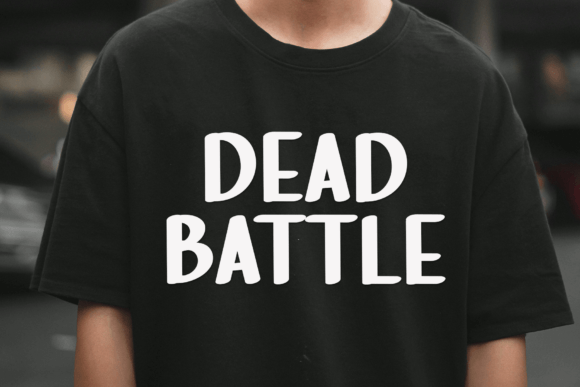
Bold Alphabet Font: Making a Statement with Strong and Eye-Catching Typography
The world of typography is vast and diverse, with numerous font styles to choose from, each with its unique characteristics and uses. Among these, the Bold Alphabet Font stands out for its strength and eye-catching appeal. Designed with thick, heavy letters, this font is perfect for making big, bold statements in headlines, posters, or any design that needs attention. In this article, we’ll explore the features, benefits, and applications of the Bold Alphabet Font, and why it’s a popular choice among designers and marketers.
Key Features of Bold Alphabet Font
- Thick and Heavy Letters: The Bold Alphabet Font is characterized by its thick and heavy letters, which give it a strong and sturdy appearance.
- Clear and Easy to Read: Despite its boldness, the font is clear and easy to read, making it perfect for use in headlines, titles, and other display text.
- Modern Feel: The font has a modern feel to it, which makes it suitable for use in contemporary designs, such as posters, flyers, and digital media.
- Versatility: The Bold Alphabet Font can be used in a variety of design applications, from print to digital media.
Applications of Bold Alphabet Font
The Bold Alphabet Font is a versatile typeface that can be used in a wide range of design applications. Here are some of the most popular uses of this font:
- Headlines and Titles: The font is perfect for use in headlines and titles, where a strong and attention-grabbing typeface is needed.
- Posters and Flyers: The Bold Alphabet Font is a popular choice for posters and flyers, where its bold and eye-catching appearance can help grab attention.
- Branding and Logo Design: The font can be used in branding and logo design, where a strong and memorable typeface is needed.
- Digital Media: The font can be used in digital media, such as social media graphics, video titles, and website headers.
Benefits of Using Bold Alphabet Font
The Bold Alphabet Font offers several benefits to designers and marketers. Here are some of the most significant advantages of using this font:
- Attention-Grabbing: The font’s bold and eye-catching appearance makes it perfect for grabbing attention in headlines, posters, and other display text.
- Easy to Read: The font is clear and easy to read, even at small sizes, making it perfect for use in a variety of design applications.
- Versatile: The font can be used in a wide range of design applications, from print to digital media.
- Modern Feel: The font has a modern feel to it, which makes it suitable for use in contemporary designs.
Tips and Best Practices for Using Bold Alphabet Font
Here are some tips and best practices for using the Bold Alphabet Font effectively:
- Use it Sparingly: Use the font sparingly, as too much bold text can be overwhelming.
- Choose the Right Size: Choose the right size for the font, depending on the design application and the audience.
- Pair it with Other Fonts: Pair the Bold Alphabet Font with other fonts to create visual interest and hierarchy.
- Consider the Color: Consider the color of the font and how it will interact with the background and other design elements.
The Bold Alphabet Font is a strong and eye-catching typeface that is perfect for making big, bold statements in headlines, posters, or any design that needs attention. With its thick, heavy letters and clear, easy-to-read design, this font is a popular choice among designers and marketers. By understanding its features, benefits, and applications, and by following best practices and tips, you can use the Bold Alphabet Font effectively in your designs and achieve your goals.